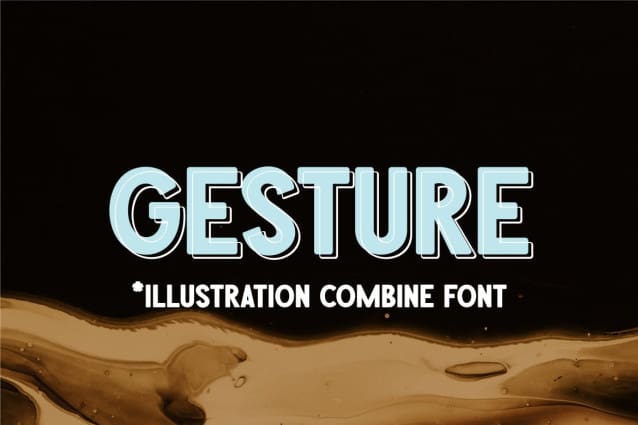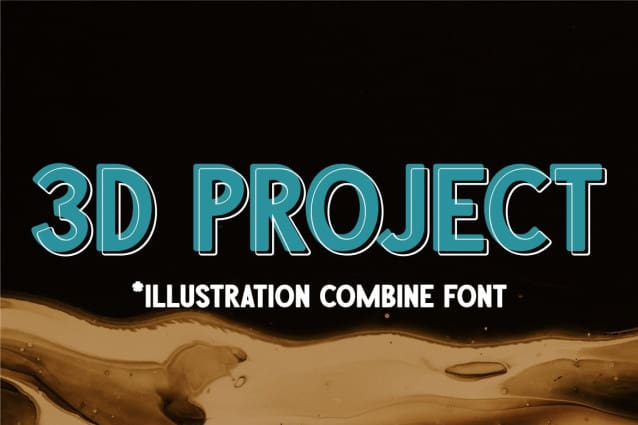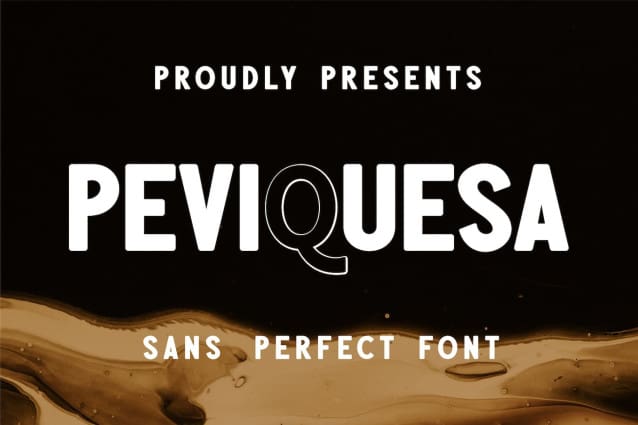
Peviquesa Font
Peviquesa Font a font with a new formula, with full thought by combining strong font characters, resulting in a stunning fresh font.
Can be used for 3D, Blender, Robotic, Space Projects, and not only that.